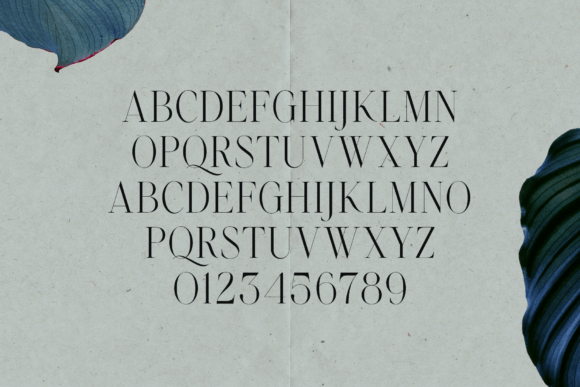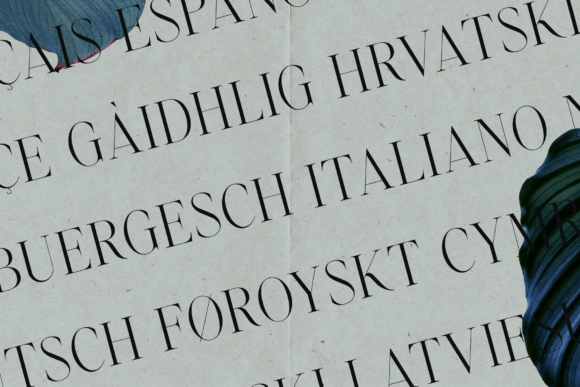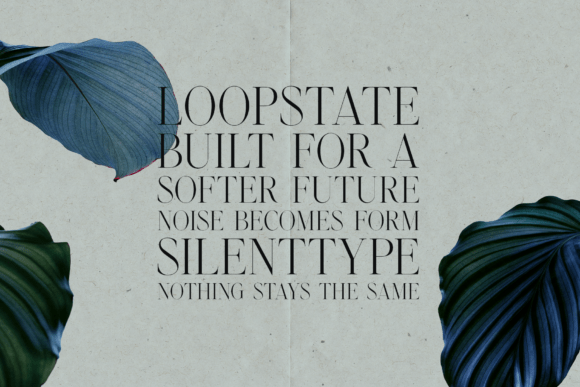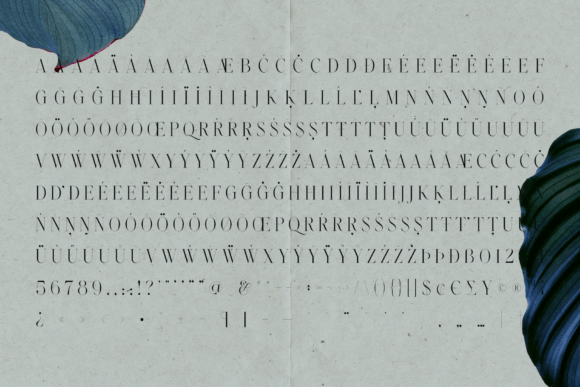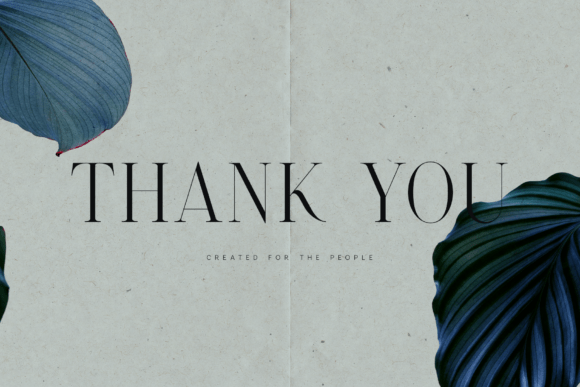
Introduction to Emotive Type Font
Have you ever been captivated by the perfect headline in a magazine or the elegant typography on a luxury brand’s website? For designers, the right typeface can evoke a sense of emotion and set the tone for a creative project. In the world of typography, there’s one font that stands out for its ability to convey a sense of calm yet confidence: the Emotive Type Font.
Designed with a poetic, editorial sensibility, the Emotive Type Font is a modern serif typeface that exudes high-quality elegance. Its tall proportions, high contrast strokes, and delicately sculpted serifs make it a valuable design resource for any creative project. Whether you’re working on a fashion editorial, luxury branding, or art book, this font shines with its refined visual storytelling and transparent background.
Key Features of Emotive Type Font
- High-quality design with a unique, emotive feel, perfect for creative projects that require a touch of personality.
- Designed to be highly legible, with clear and crisp characters that work well at various resolutions, including 72 dpi and 300 dpi.
- Perfect for designers looking for a high-quality, creative font that can add an emotional depth to their work.
Honest Review: Emotive Type Font
As a designer, I’m always on the lookout for high-quality design resources to elevate my creative projects. Recently, I stumbled upon the Emotive Type Font, and I’m excited to share my honest review with you.
What works well: ✨ The Emotive Type Font is incredibly versatile, making it perfect for a wide range of design projects. Its elegant and modern design makes it suitable for everything from branding to digital design. I also appreciate the transparent background, which allows for seamless integration with any design element.
- High-quality design: The font is well-designed, with a clear and legible structure that makes it perfect for large-scale text.
Limitations: ⚠️ While the Emotive Type Font is an excellent choice for most design projects, it may not be suitable for projects requiring a more dramatic or bold font. Additionally, the font’s modern design may not be the best fit for more traditional or classic designs.
Overall, I’m impressed with the Emotive Type Font and would highly recommend it to designers looking for a high-quality, versatile font for their creative projects.
The Emotive Type Font is a high-quality design resource ideal for creative projects that require a touch of emotion and personality. With its unique characteristics, this font can add a professional yet creative touch to your designs.
Tips for Getting the Most Out of Emotive Type Font
1. Use the font on a transparent background to create a sense of depth and dimension.
2. Pair the font with other creative design elements to create a cohesive look.
3. Experiment with different font sizes and styles to create visual interest.
The Emotive Type Font is ideal for use in:
1. Social media graphics and ads.
2. Blog posts and articles.
3. Branding and marketing materials.